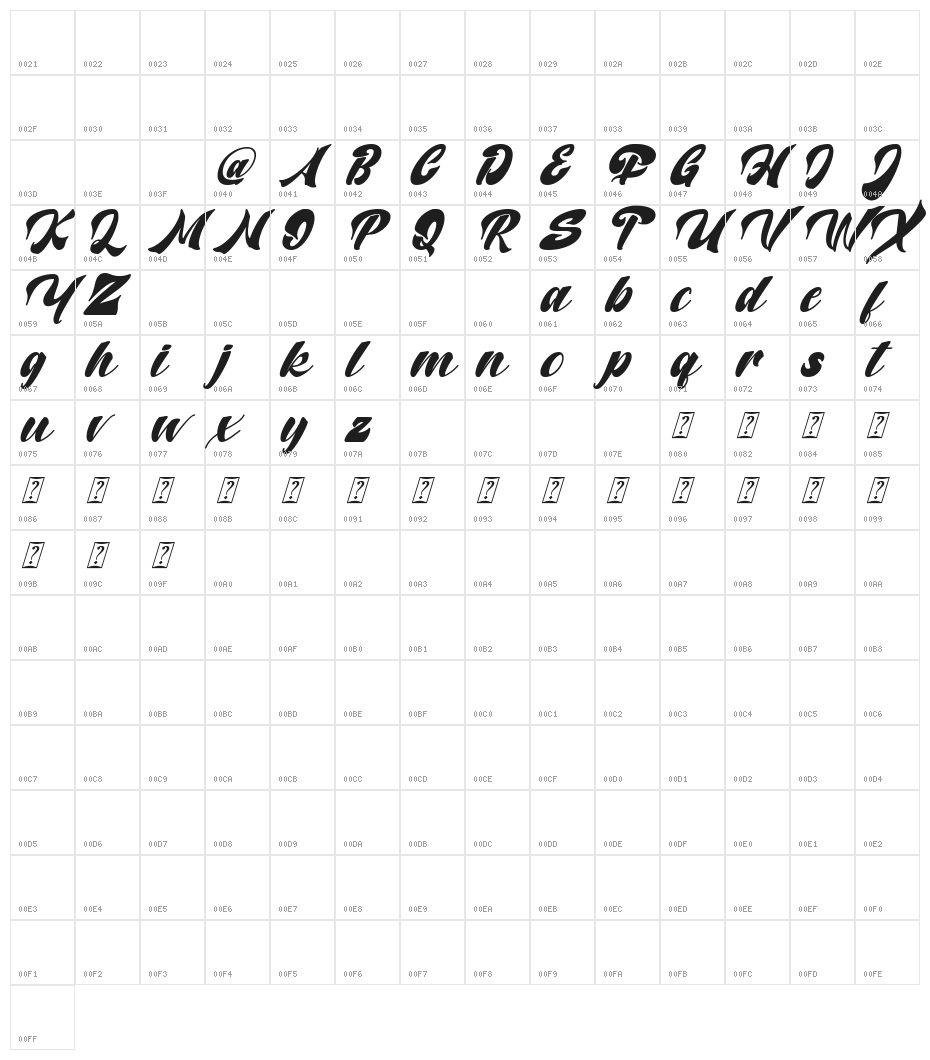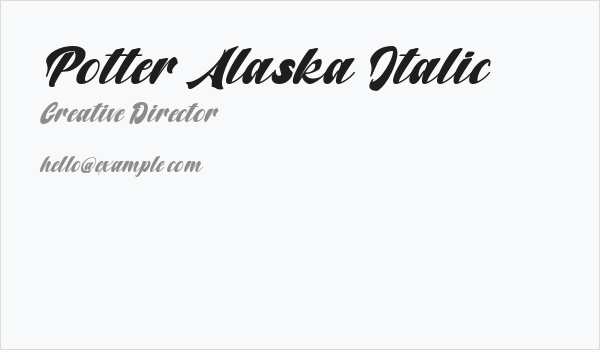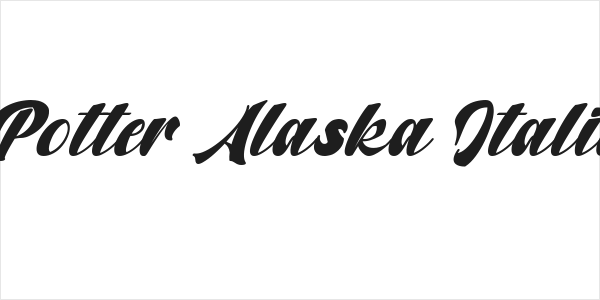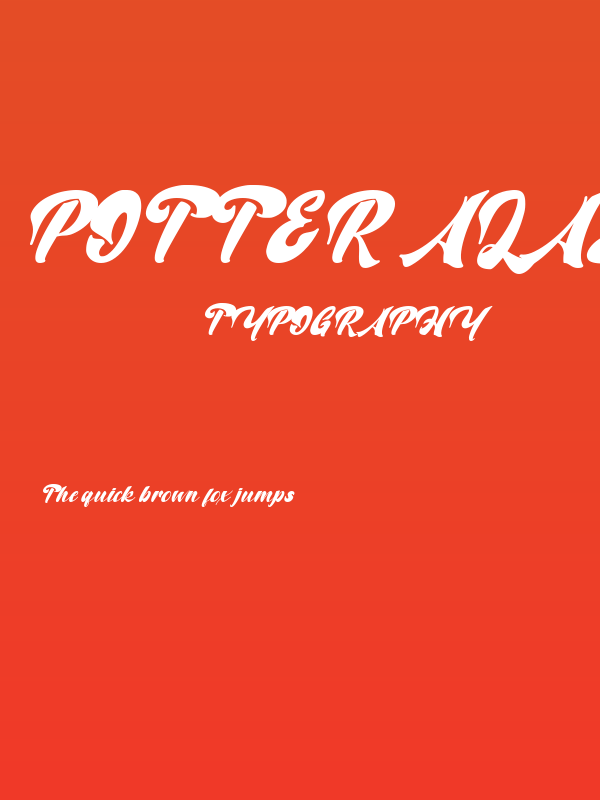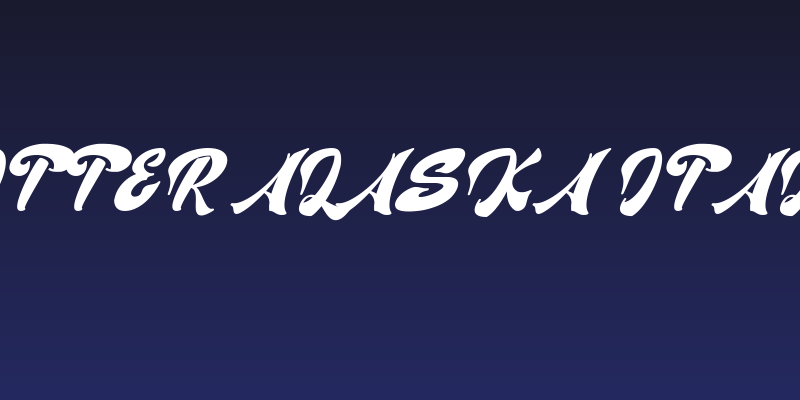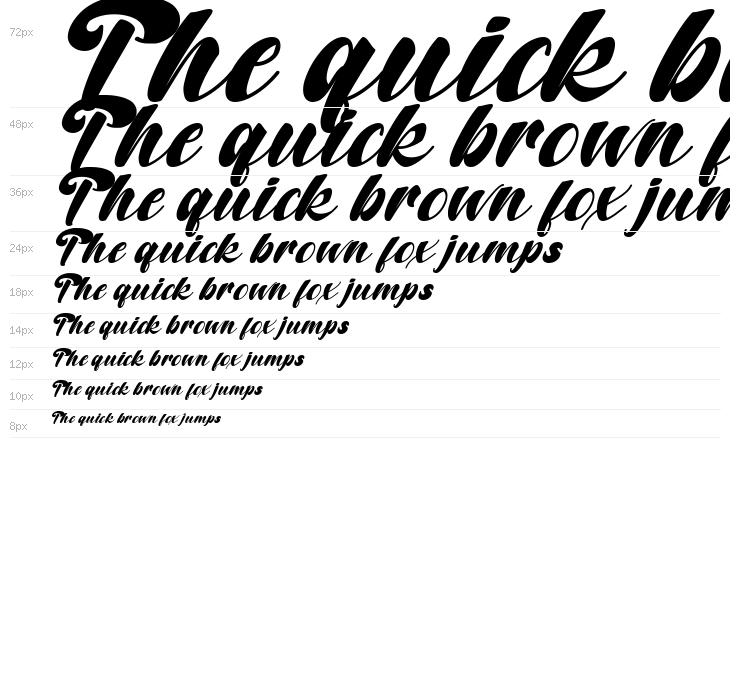
Potter Alaska Italic Font
Potter Alaska Italic Description
This font features a bold and dynamic script style with a strong italic slant, giving it a sense of movement and fluidity. The characters are closely connected, creating a cohesive and flowing appearance. The strokes are thick and expressive, with high contrast between thick and thin lines, adding to its dramatic and eye-catching nature. The uppercase letters are particularly ornate, with sweeping curves and flourishes that enhance its decorative appeal. This font is well-suited for projects that require a touch of elegance and flair, such as invitations, branding, and headlines.
Use CaseHeadlines, Logos, Invitations
Proposed ProjectsIdeal for wedding invitations, logo design, branding, and elegant headlines.